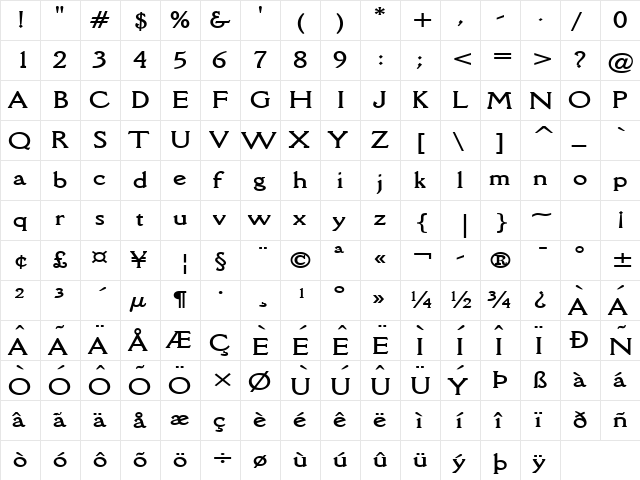
Rory Wide Bold
Design Context for Rory Wide Typeface
Rory Wide offers clean, dependable letterforms without strong stylistic allegiance, making it a practical choice for designers who need flexibility. Its bold stroke weight gives it real presence on the page.